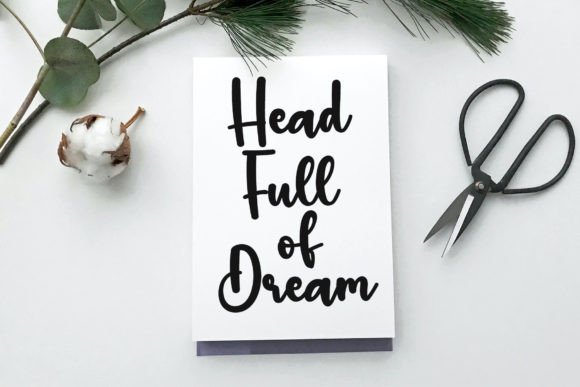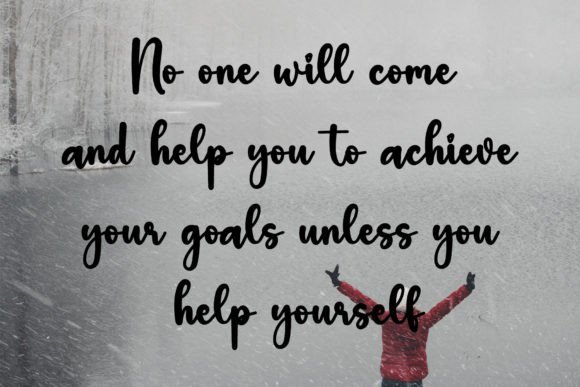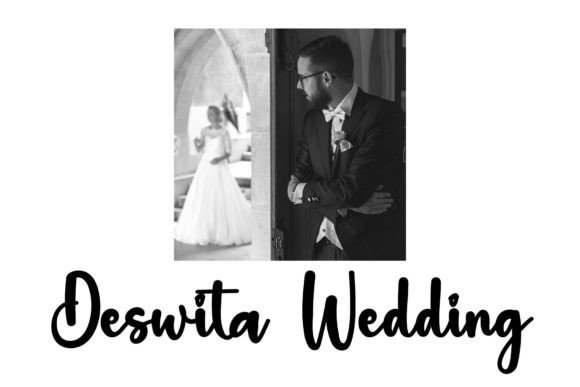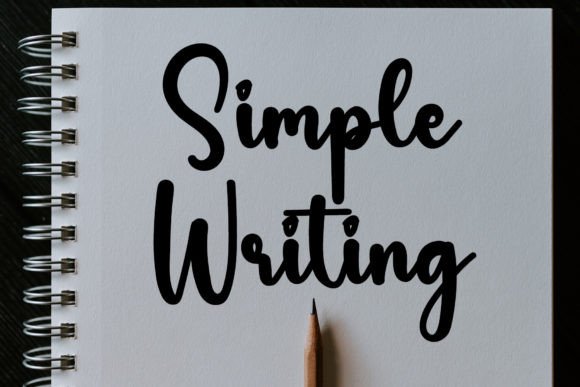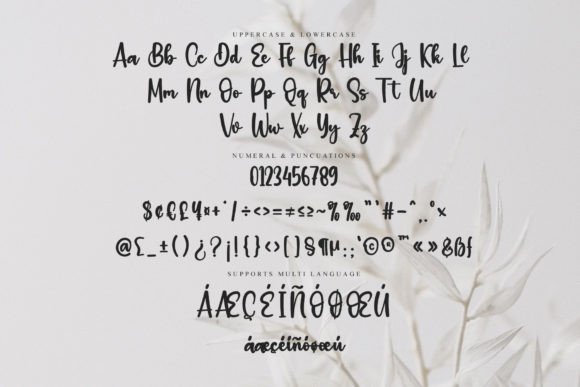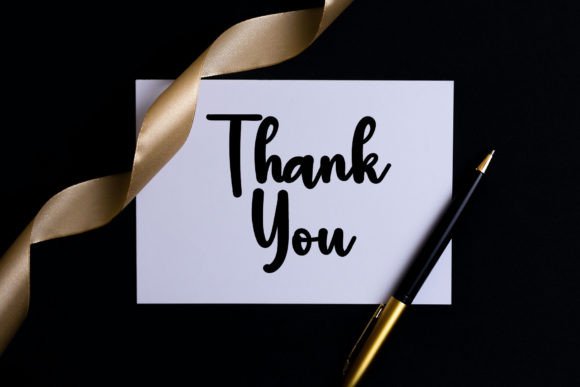
Introducing Gloria Font: The Sweet and Cursive Handwritten Font for Your Design Needs
Are you looking for a font that can add a touch of sweetness and romance to your designs? Look no further than Gloria Font, a beautiful and cursive handwritten font that is perfect for a variety of design projects. With its gentle and flowing curves, Gloria Font is sure to make your designs stand out and leave a lasting impression.
What Makes Gloria Font Special?
Gloria Font is a unique and elegant font that is designed to add a joyful and romantic touch to your projects. Its cursive and handwritten style makes it perfect for designs that require a personal and whimsical touch. Whether you’re working on a branding project, creating a logo, or designing wedding materials, Gloria Font is the perfect choice.
Uses for Gloria Font
Gloria Font is a versatile font that can be used for a wide range of design projects, including:
- Branding: Use Gloria Font to create a unique and memorable brand identity that stands out from the crowd.
- Logo Design: Create a beautiful and elegant logo that showcases your brand’s personality and style.
- Wedding Design: Add a touch of romance and whimsy to your wedding designs, including invitations, programs, and decorations.
- Greeting Cards: Use Gloria Font to create beautiful and heartfelt greeting cards for special occasions.
- Fashion: Add a touch of elegance and sophistication to your fashion designs, including lookbooks and marketing materials.
- Marketing Promotion: Use Gloria Font to create eye-catching and effective marketing materials, including flyers, brochures, and posters.
Why Choose Gloria Font?
There are many reasons why Gloria Font is the perfect choice for your design needs. Here are just a few:
- Unique and Elegant: Gloria Font is a one-of-a-kind font that is sure to make your designs stand out.
- Easy to Read: Despite its cursive style, Gloria Font is easy to read and understand, making it perfect for body text and headlines.
- Versatile: Gloria Font can be used for a wide range of design projects, from branding and logos to wedding designs and greeting cards.
- High-Quality: Gloria Font is a high-quality font that is designed to look great in any size or resolution.
Tips for Using Gloria Font
Here are a few tips for getting the most out of Gloria Font:
- Use it as a Headline Font: Gloria Font is perfect for headlines and titles, where its elegant and cursive style can really shine.
- Pair it with a Sans-Serif Font: For body text, pair Gloria Font with a sans-serif font to create a nice contrast and make your text easy to read.
- Experiment with Colors: Gloria Font looks great in a variety of colors, so don’t be afraid to experiment and find the perfect color for your design.
Gloria Font is a beautiful and versatile font that is perfect for designers and crafters who want to add a touch of sweetness and romance to their designs. With its elegant and cursive style, Gloria Font is sure to make your designs stand out and leave a lasting impression. Whether you’re working on a branding project, creating a logo, or designing wedding materials, Gloria Font is the perfect choice.